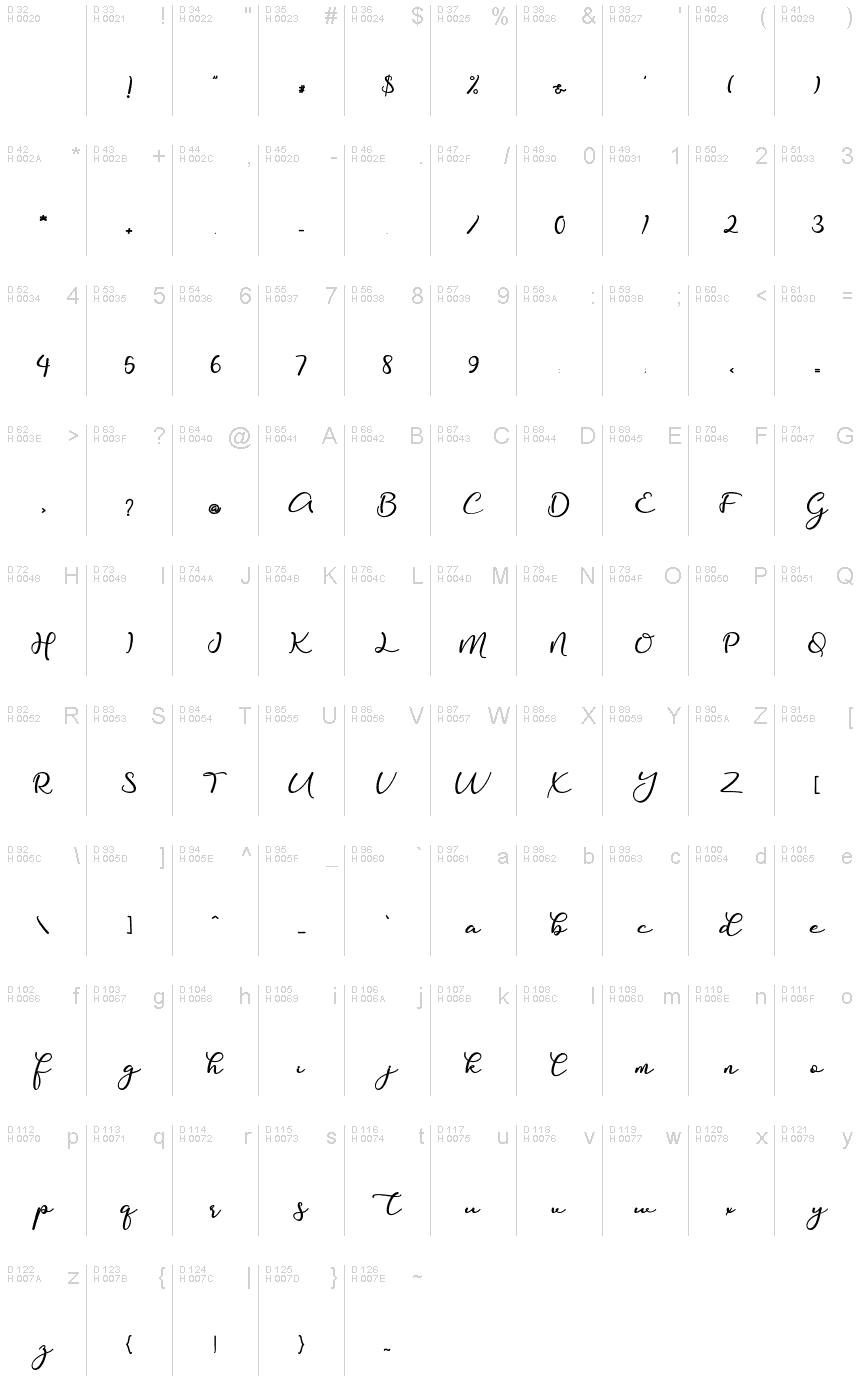
Fajaritta
The Fajaritta font by Tiny Hand Letter is a charming, handwritten typeface that exudes a whimsical and playful feel. The light weight of this semi-expanded font adds to its delicate nature, making it perfect for projects that require a touch of elegance. Use it on invitations, greeting cards or even in branding materials for artisanal products. The Fajaritta font is versatile enough to be used in both digital and print mediums, making it an excellent choice for web design projects and editorial layouts alike. Let this charming semi-bold font bring life and personality to your next creative endeavor.